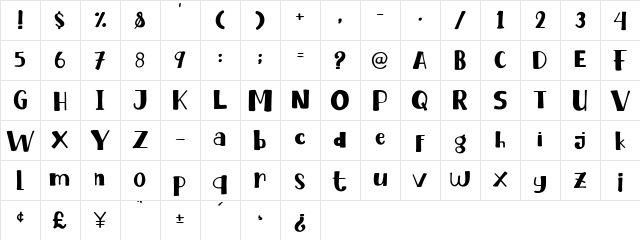
Baby Eliot Regular Free Font
Baby Eliot Regular
Foundry: Khurasan
Designer: Khurasan
Design Context for Baby Eliot
Baby Eliot is a composed and adaptable typeface that performs quietly and consistently across a wide range of design contexts.